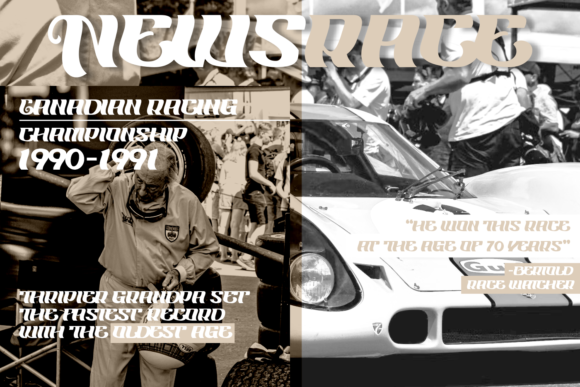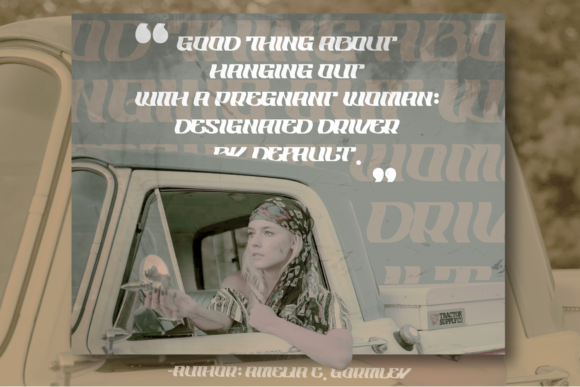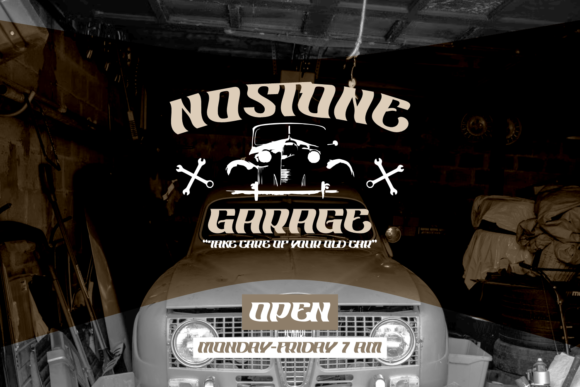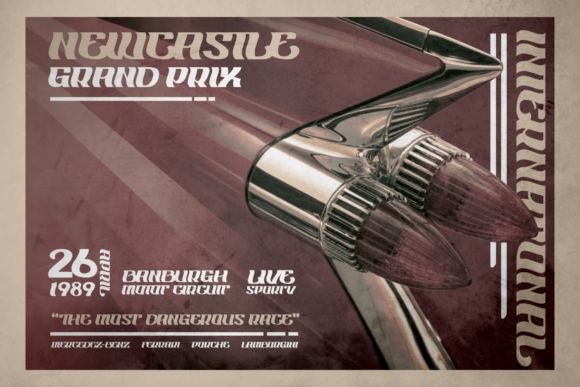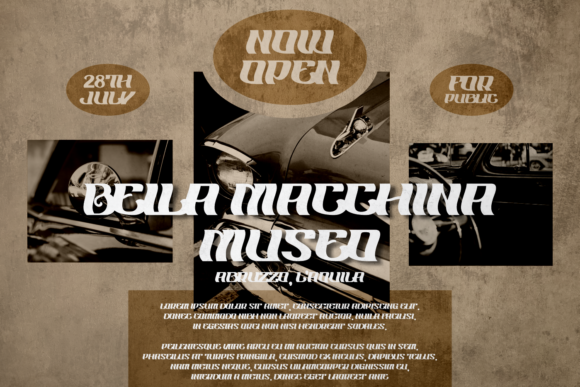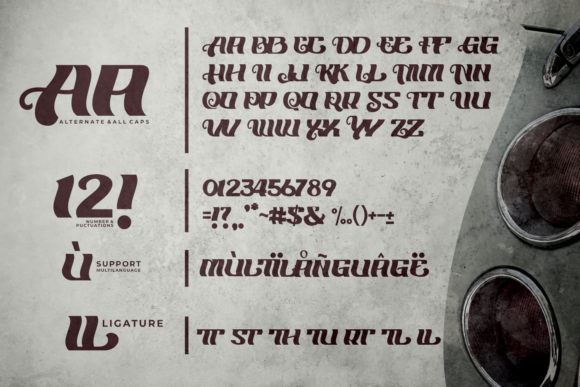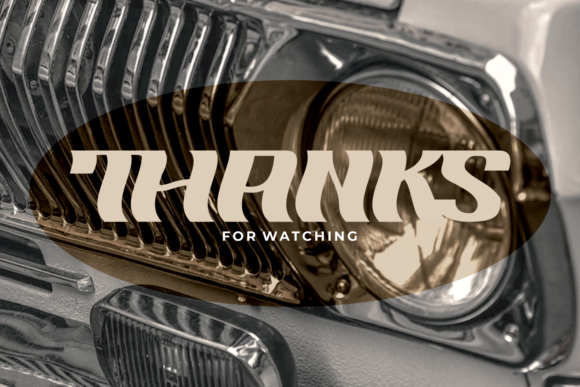
Onthel Font
ONTHEL FONT SPECIMEN
Introducing Onthel, a modern and cool slab serif font that offers various faces, including racing, retro, and elegant styles. With its bold shape and beautiful alternate stylistics, this font exudes a unique and exquisite appearance.
Onthel is the perfect choice for a wide range of design projects. Whether it’s branding projects, logos, wedding designs, social media posts, advertisements, product packaging, product designs, labels, photography, watermarks, invitations, stationery, or any project that requires unique typography, Onthel delivers.
Onthel’s modern and cool design sets it apart as a font that captures attention and adds a contemporary edge to your designs. Its bold shape creates a strong visual impact, while the beautiful alternate stylistics provide versatility and allow for various design options. Whether you’re aiming for a racing-inspired look, a retro vibe, or an elegant touch, Onthel offers the flexibility to match your desired aesthetic.
Branding projects and logos benefit from the uniqueness of Onthel. Its modern and cool slab serif style sets your brand apart and creates a memorable impression. Onthel’s boldness and beautiful alternate stylistics give your branding a distinct identity and make it visually captivating.
Wedding designs and social media posts are elevated with the inclusion of Onthel. Its exquisite appearance adds a touch of elegance and sophistication, making your designs stand out. Whether it’s for save-the-date cards, invitations, or Instagram graphics, Onthel’s unique typography enhances the overall aesthetic and creates a memorable impression.
Onthel’s versatility extends to various other design applications. It is well-suited for advertisements, product packaging, product designs, labels, photography, watermarks, invitations, and stationery. Its boldness and beautiful alternate stylistics make it a valuable asset in creating visually appealing and unique compositions.
In addition, Onthel’s PUA encoding allows for easy access to all of its glyphs and swashes. This feature enables seamless integration of special characters and decorative elements, further enhancing the visual appeal of your designs.
In summary, Onthel is a modern and cool slab serif font that offers several faces, including racing, retro, and elegant styles. Its versatility and unique typography make it suitable for branding projects, logos, wedding designs, social media posts, advertisements, product packaging, product designs, labels, photography, watermarks, invitations, stationery, and more. Embrace Onthel and let its boldness and exquisite appearance elevate the impact of your design projects.